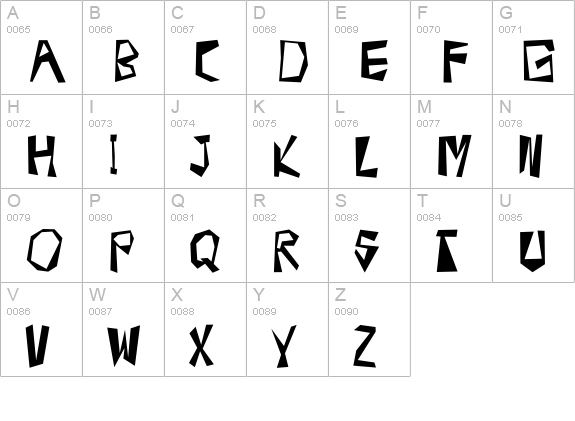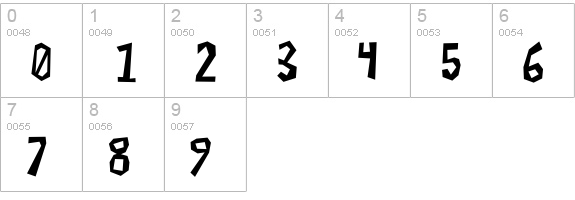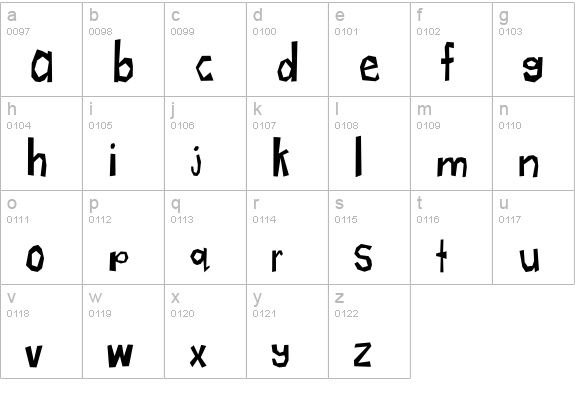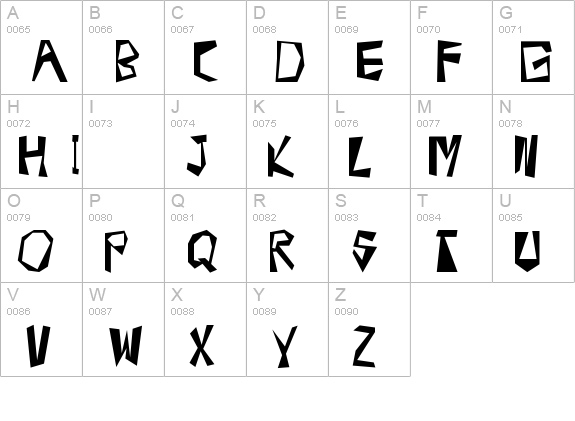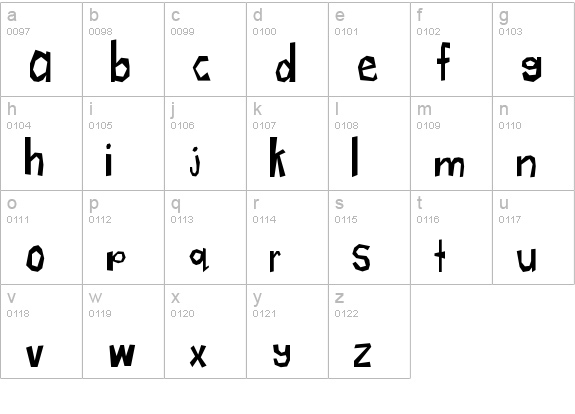
Introducing Radioactive font, a captivating and striking typeface that will electrify your design projects. This font exudes a dynamic energy, reminiscent of the powerful and awe-inspiring phenomenon of radioactivity. Its bold and edgy letterforms command attention, making it the perfect choice for anything that requires a vibrant and impactful visual presence. With its unique and futuristic design, Radioactive font is not just a font, but a statement. Whether you're creating eye-catching posters, attention-grabbing headlines, or captivating social media graphics, this font will ensure that your message stands out from the crowd. But what makes Radioactive font even more appealing is that it is freely available to download at FontsMarket.com. Yes, you heard it right – this extraordinary font can be yours without any cost. Now you can unleash your creativity without worrying about breaking the bank. Furthermore, Radioactive font is highly versatile, offering a range of glyphs and characters that allow you to customize and personalize your designs. Its clean and well-defined lines ensure legibility, even in smaller sizes, making it suitable for both print and digital applications. So, why settle for ordinary when you can have something extraordinary? Download Radioactive font today from FontsMarket.com and watch your designs come to life with an electrifying energy that will leave a lasting impact on your audience. Let your creativity radiate with this incredible font that is truly one-of-a-kind.